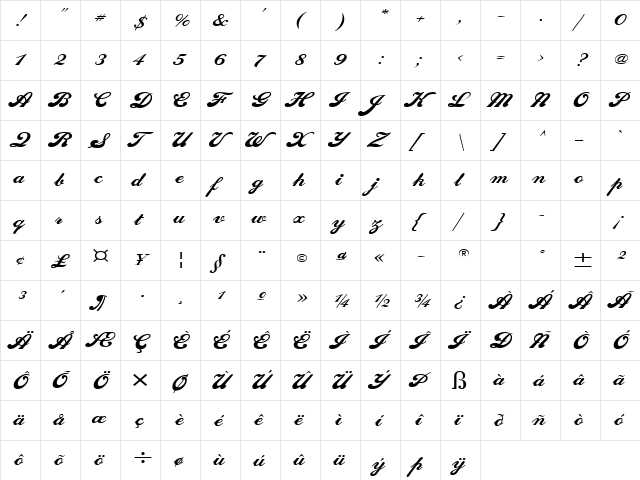
Sweden Wide Normal
Design Context for Sweden Wide Typeface
Sweden Wide is a composed and adaptable typeface that performs quietly and consistently across a wide range of design contexts.